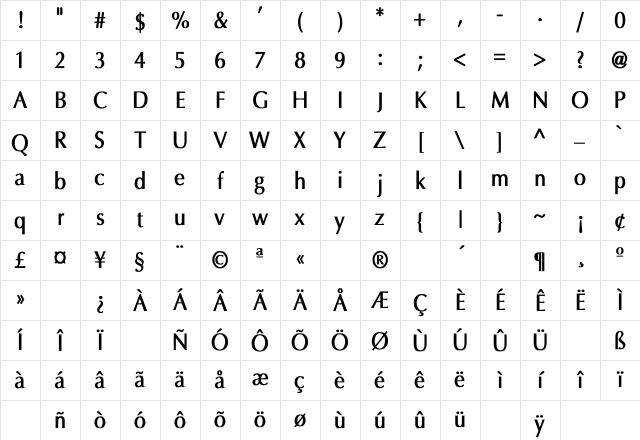
Optima Bold Th Bold Bold
Optima Bold Th Bold Family
Design Context for Optima Bold Th Bold
Optima Bold Th Bold is a composed and adaptable typeface that performs quietly and consistently across a wide range of design contexts. Its bold stroke weight gives it real presence on the page.